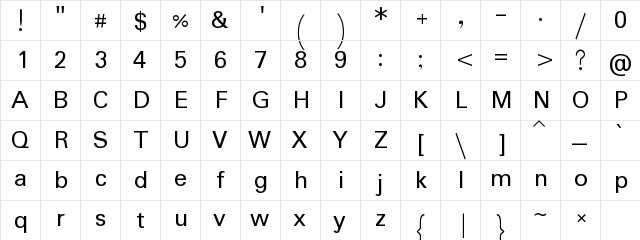
Lanna Alif Regular
Design Context for Lanna Alif Typeface
Lanna Alif is a composed and adaptable typeface that performs quietly and consistently across a wide range of design contexts.